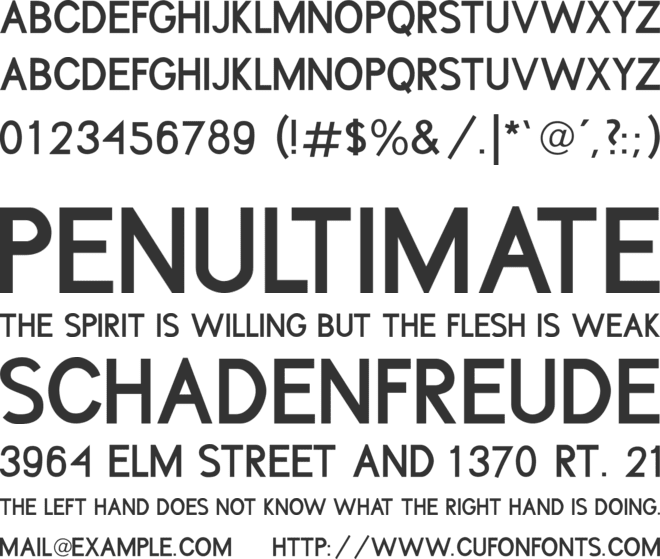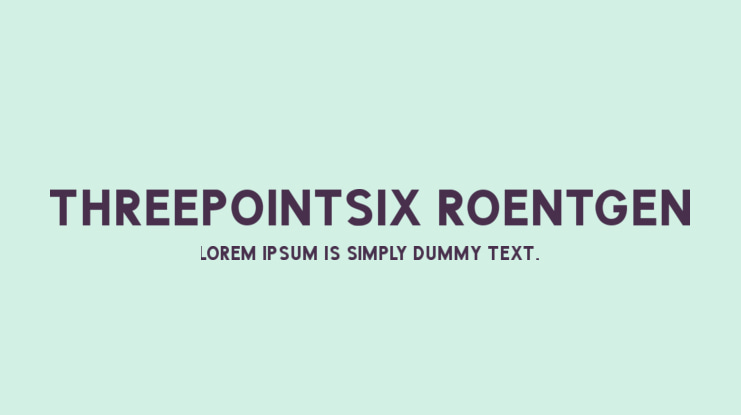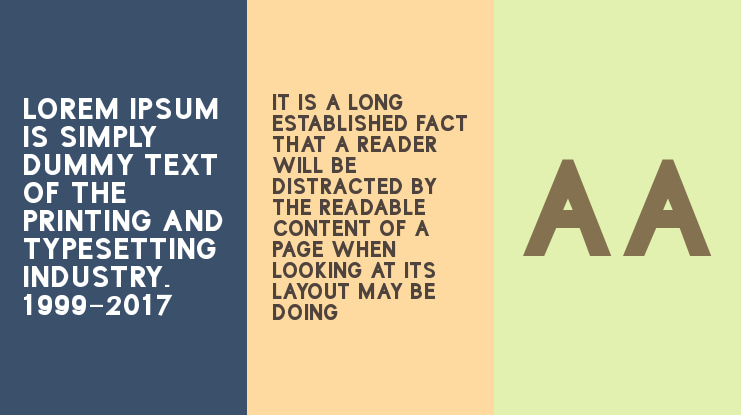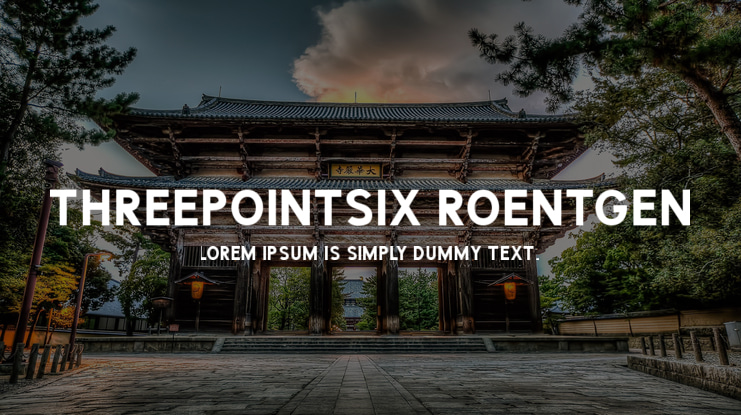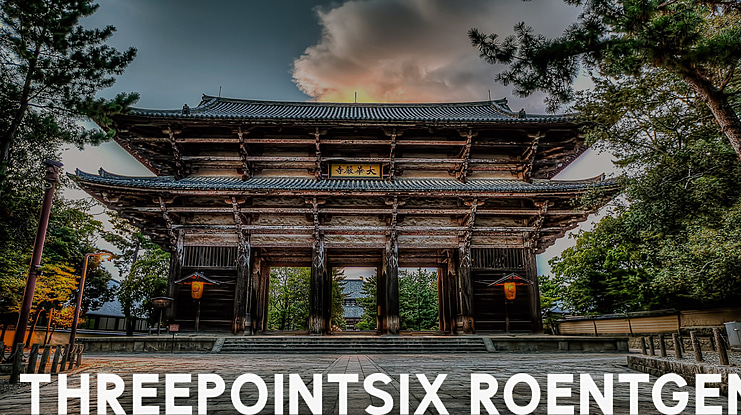
ThreePointSix Roentgen Font Family
Pete Klassen
The Three Point Six Roentgen font is inspired by HBO/Sky's TV miniseries "Chernobyl".
This version is the Caps version, i.e., there are only capital letters in this font.
The font contains the following character tables: - Latin alphabet (the usual) - Extended Western characters (accent characters like Ä, É) - Numbers, punctuation etc.